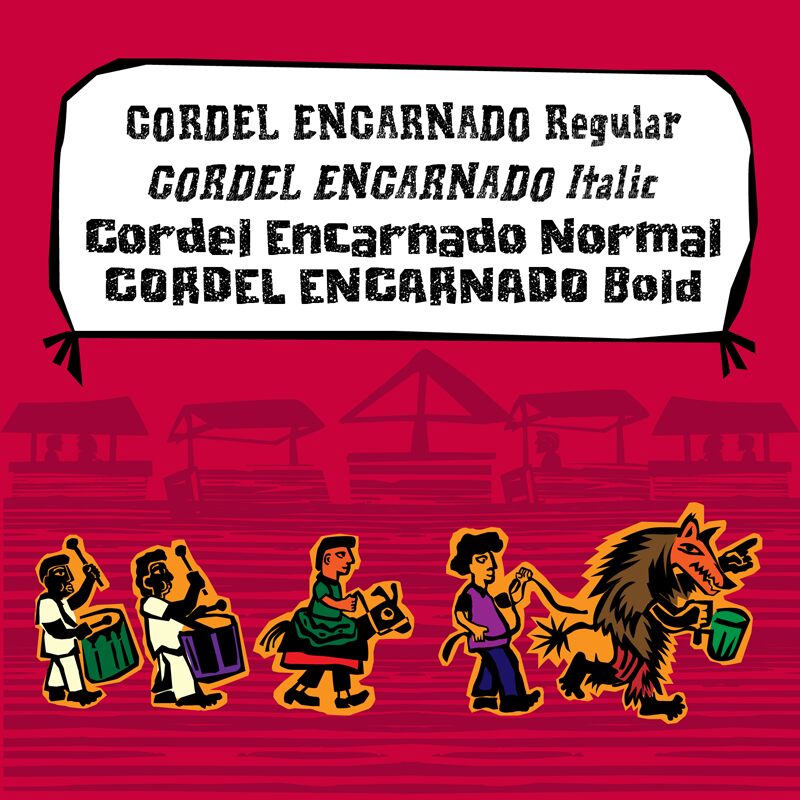
Cordel Encarnado Bold
Cordel Encarnado Bold font is a unique eroded display font designed by Galdino Otten Fonts. The bold character and rough appearance of this typeface let it stand out when utilized in a digitally creative work. Made to present a grunge texture and distressed look, Cordel Encarnado will surprise you with its unique aesthetic.
Use this free hand-crafted font in music album covers, magazine headlines, or movie titles. Try it on your product packaging, store signage, advertisements for TV or the radio. Posters for arts and other events are also options that can benefit from using this powerful vintage feel display typeface.